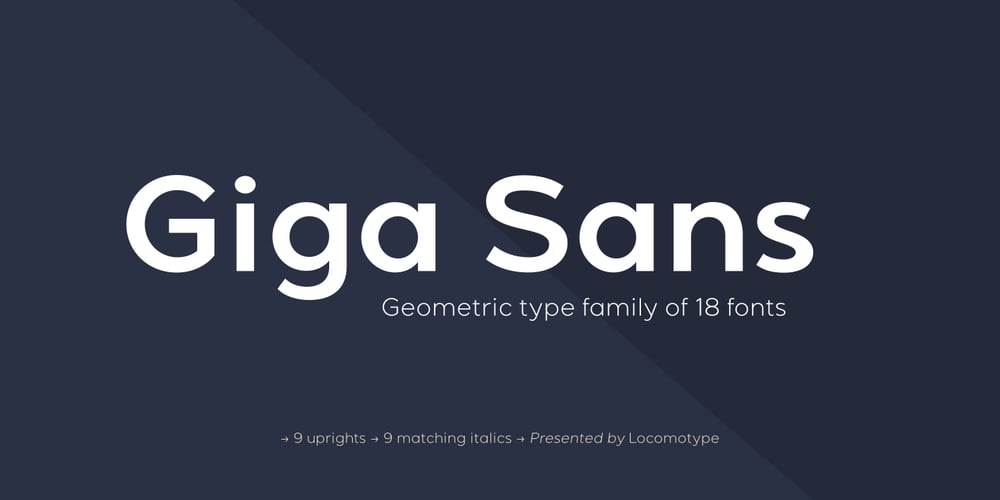
Giga Sans
Giga Sans Font Family was designed by Arwan Sutanto and published by Locomotype. Giga Sans contains 18 styles and family package options. Giga Sans is a modern sans serif font with a clean and elegant geometric touch. Consists of 9 uprights and 9 matching italics ranging from Thin to Black.Besides being suitable for strong headlines, Giga Sans can also be used for long paragraphs such as news content, magazines, brochures, catalogs, logotypes and more.Giga Sans also has OpenType features such as stylistic alternates, old style figures, tabular figures, fractions, localized forms, superscripts, subscripts and also supports Cyrillic alphabets.There is no doubt that Giga Sans will make it easier for you to mix and match typography in graphic design, website, motion graphics etc. It would be more interesting if you pair this font with our script fonts like Hokyaa, Windtalker or Garris.